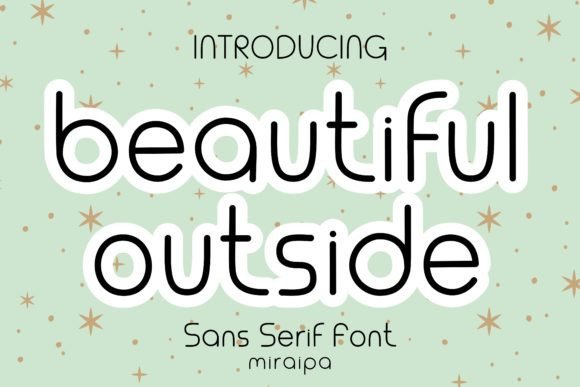
Introduction to Beautiful Outside Font
Beautiful Outside is designed in a friendly and classy handwritten San serif style.
It’s charming, Classic, and modern It would be awesome to your fun projects or diary planner.